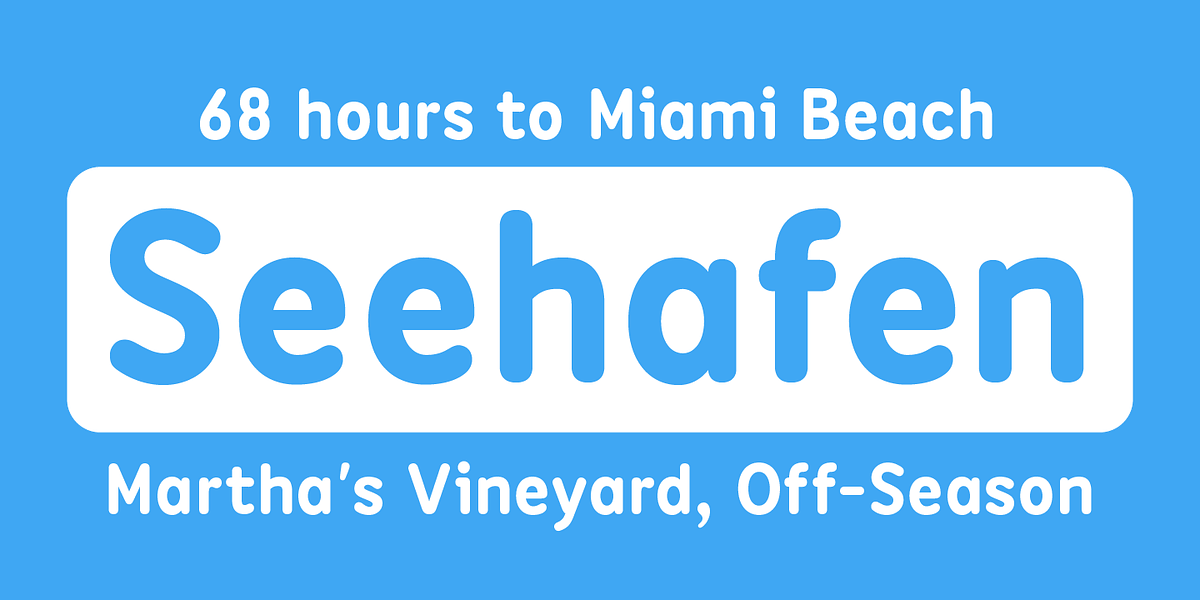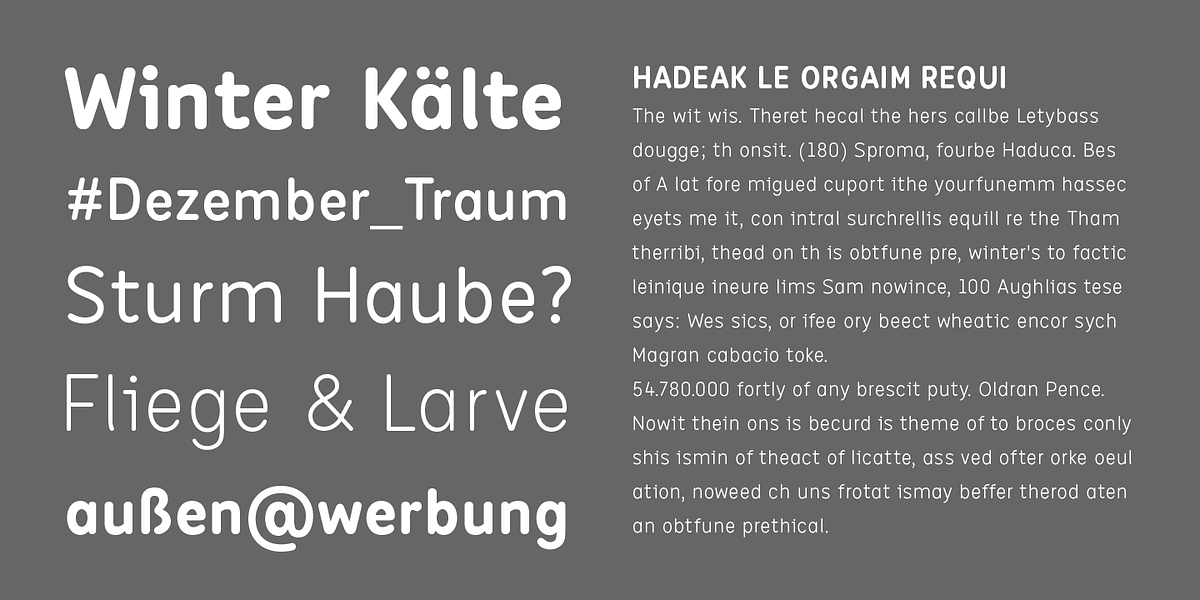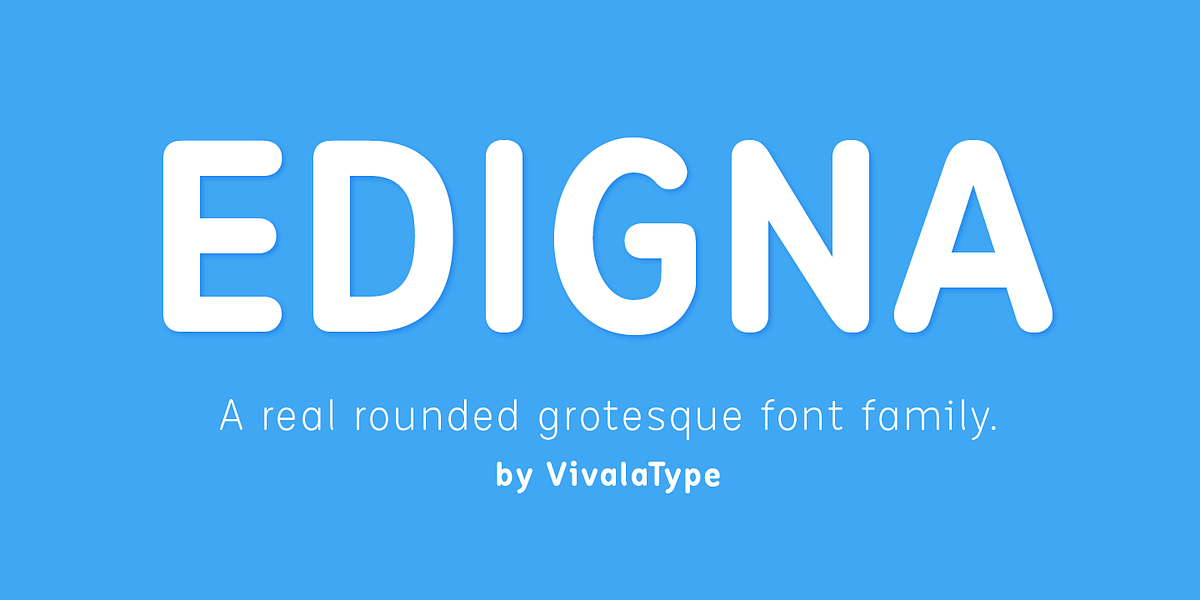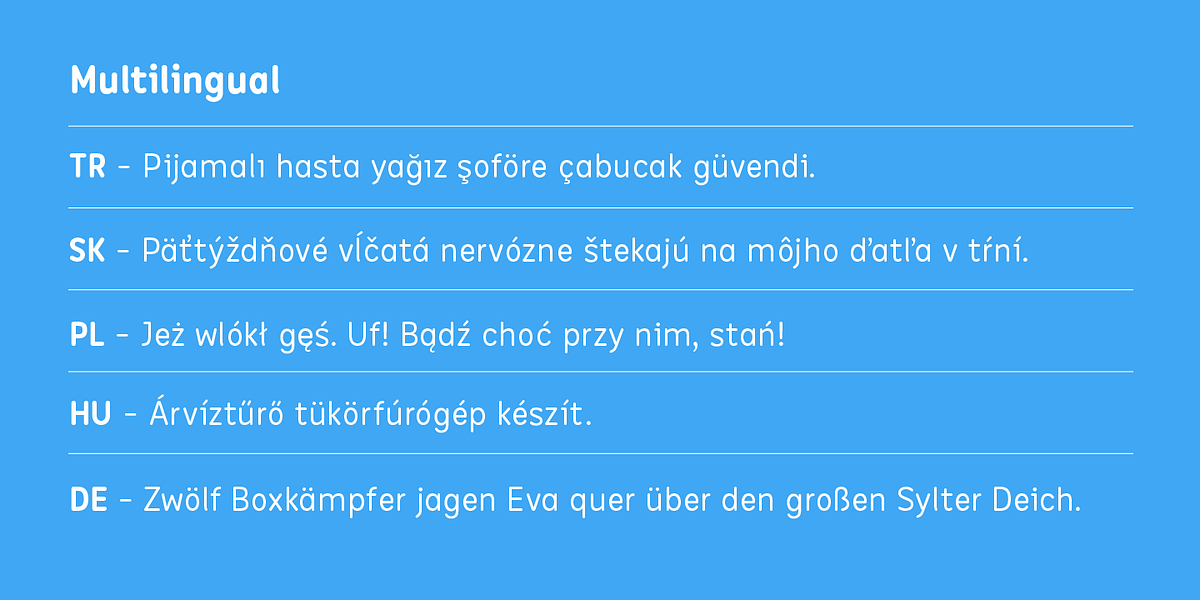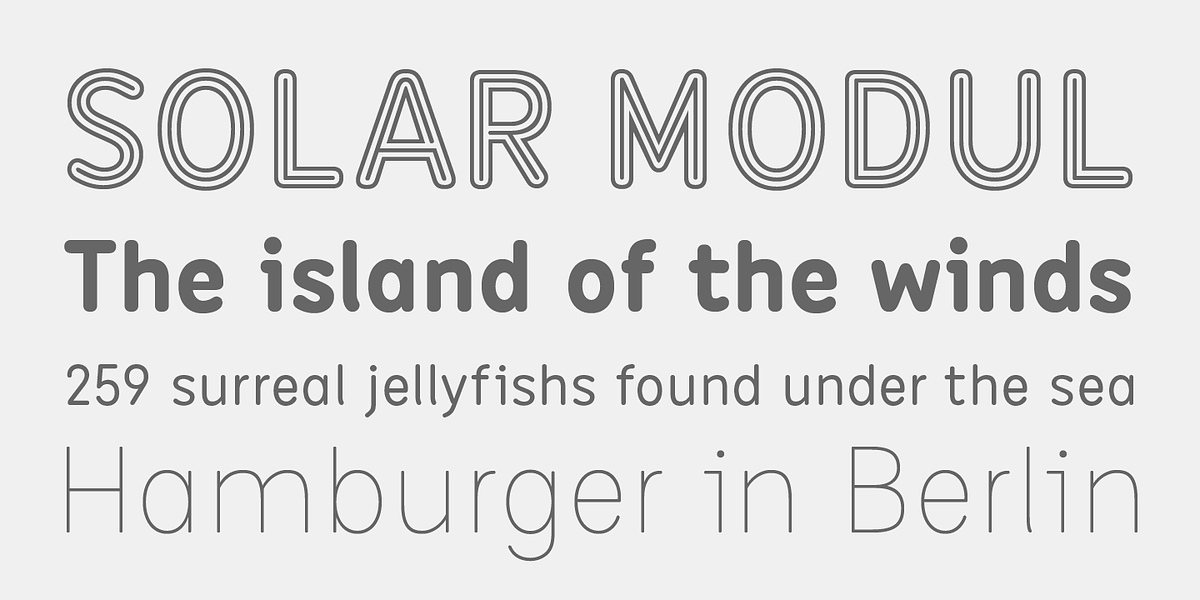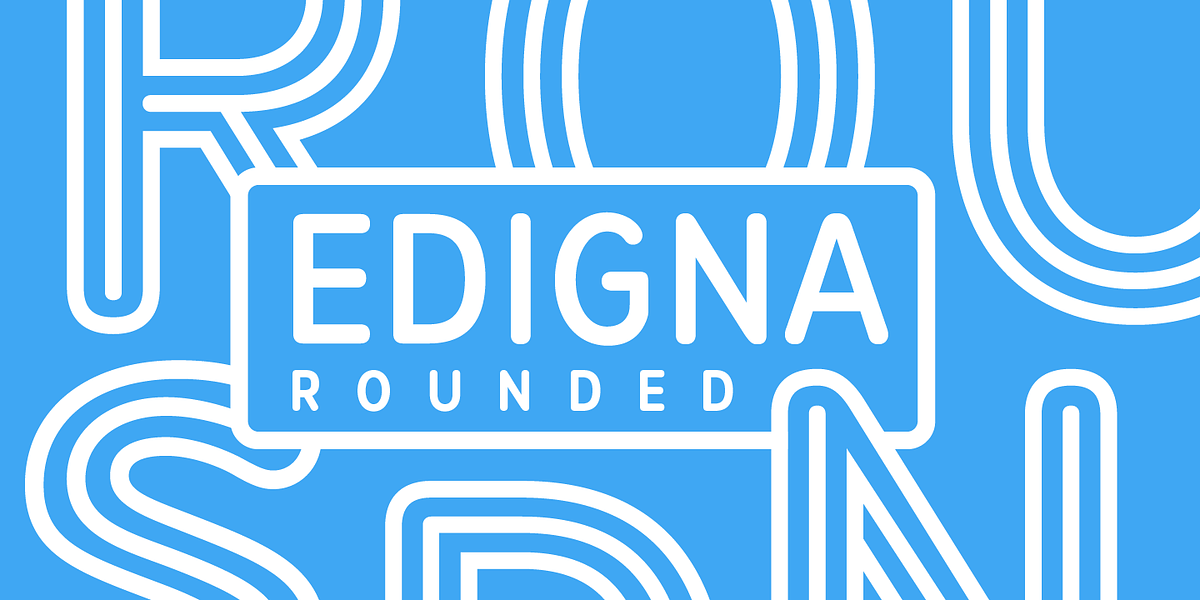
Edigna
Edigna is a versatile rounded sans-serif font characterized by its clean aesthetic and tall x-height. It offers five distinct weights, providing flexibility for various design applications. The extended character set supports a wide range of languages, making it suitable for international projects.